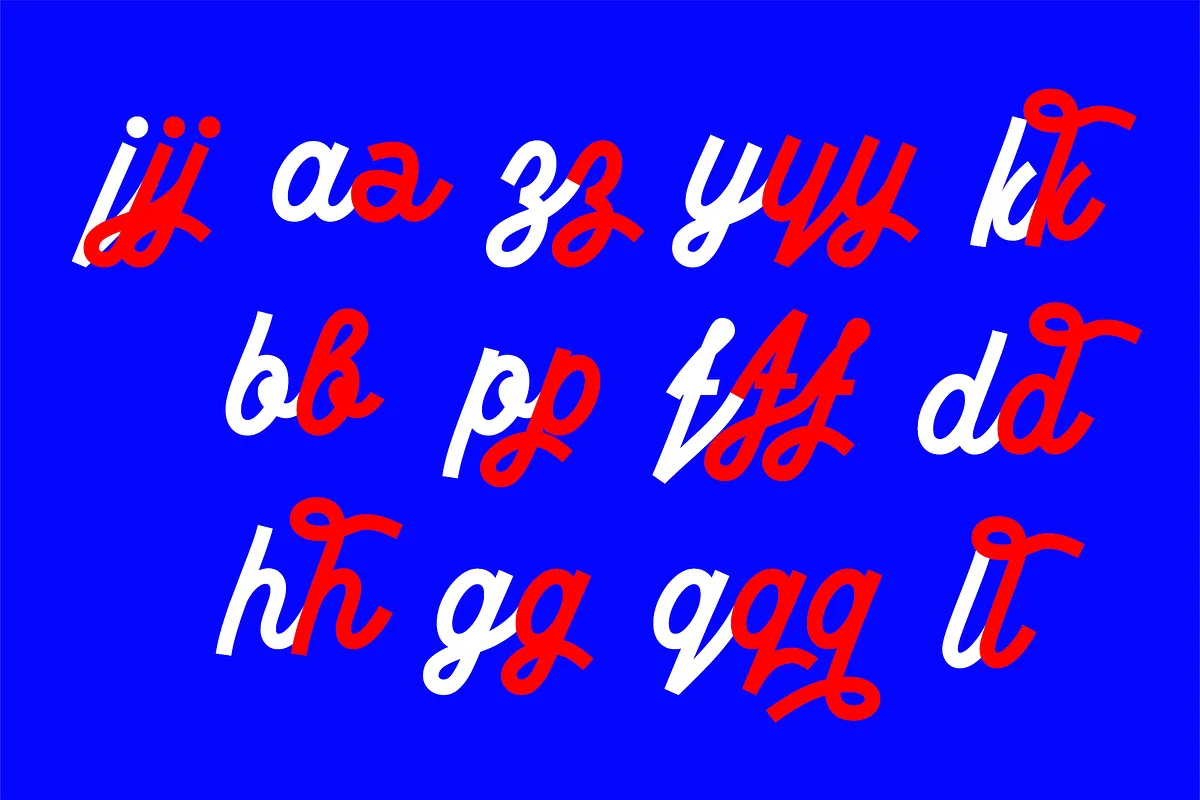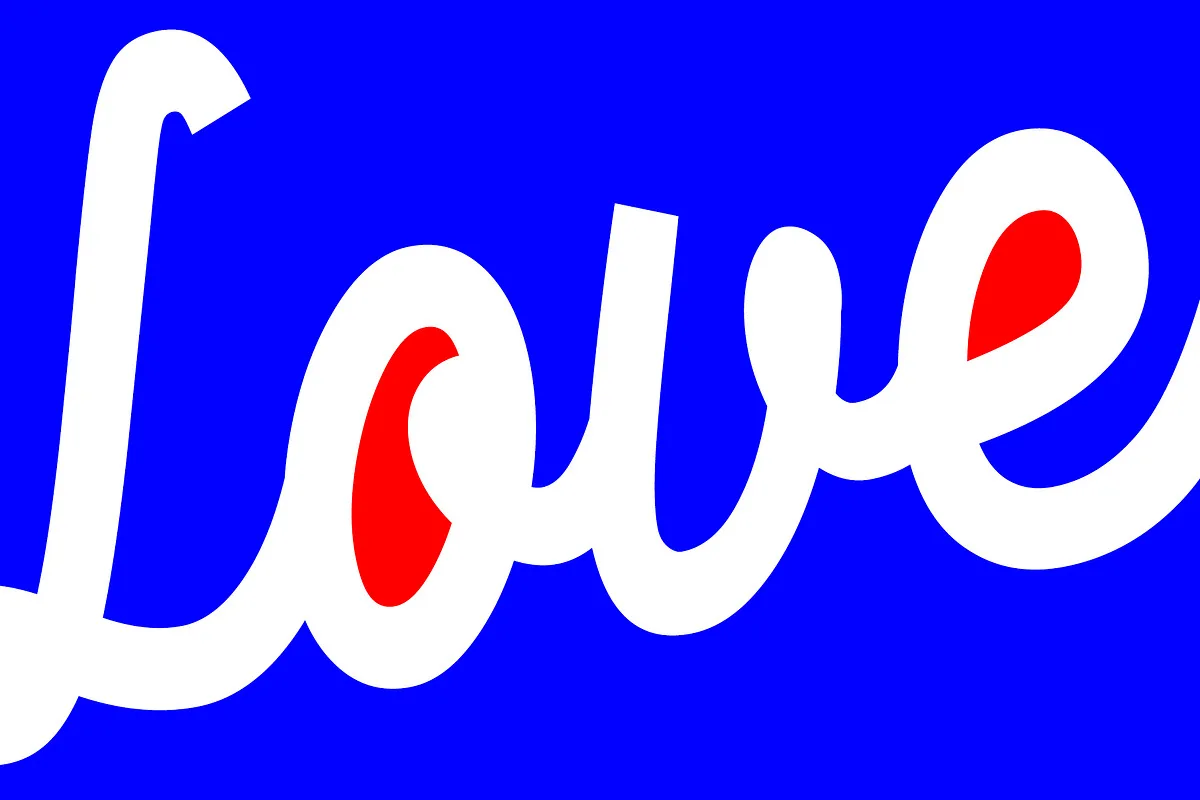
Introducing Geraldica. Monoline script supports foreign languages and has special characters as ß, ñ, ç, etc. Font set has 381 symbols including alternates with different calligraphic swashes. Enjoy it!